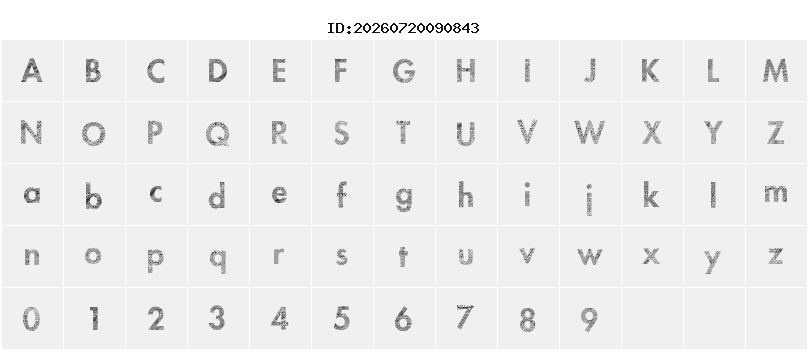
• Font Name: Futuremoon
• Full Font Name: Futuremoon
• Designer: Max Infeld
• Manufacturer: Xerographer
• Description: The Future Moon Font
About Futuremoon.ttf
Futuremoon.ttf is a modern, elegant sans-serif font designed for ultimate readability and visual harmony. Perfect for branding, headlines, web design, and print materials.